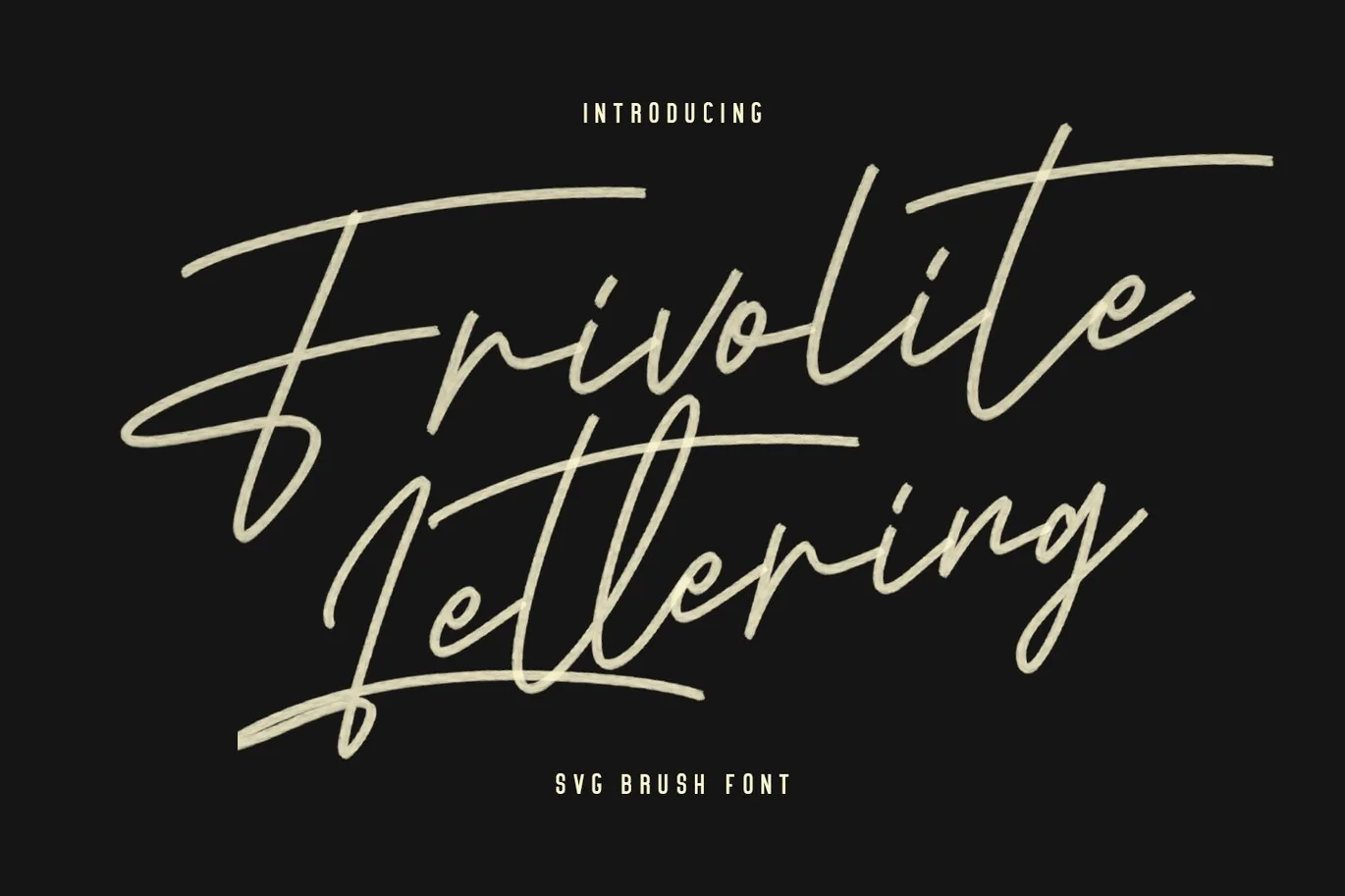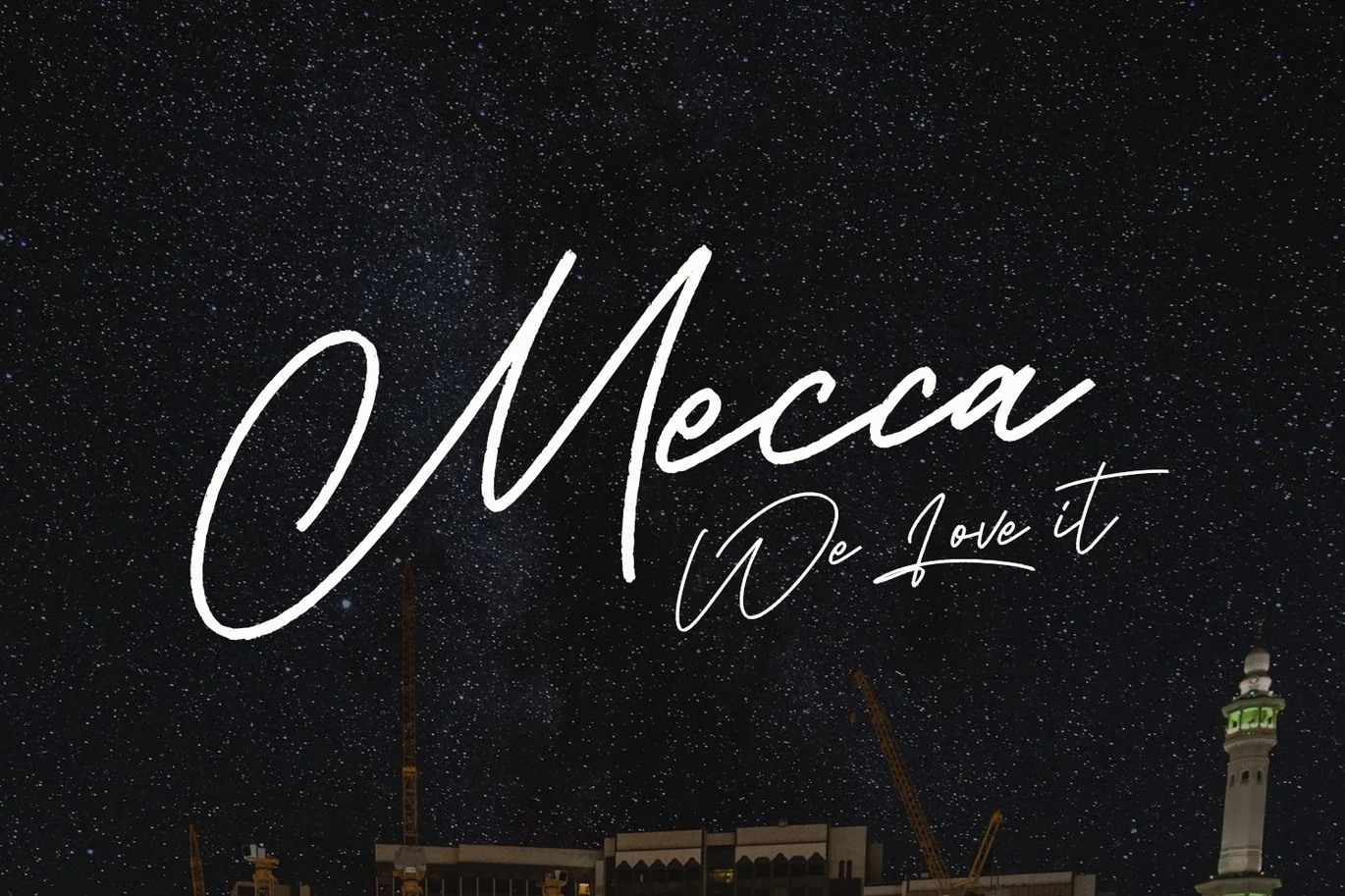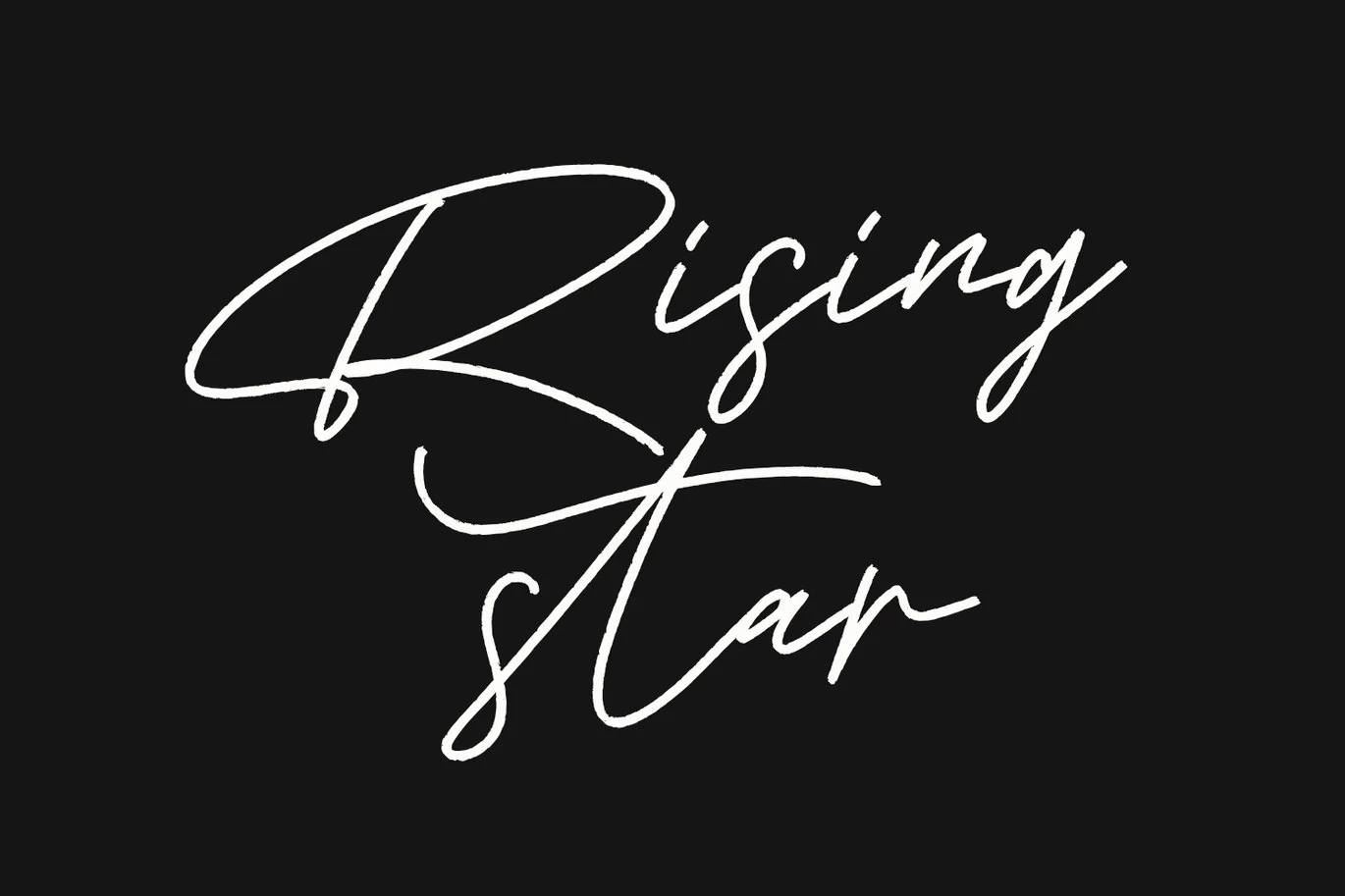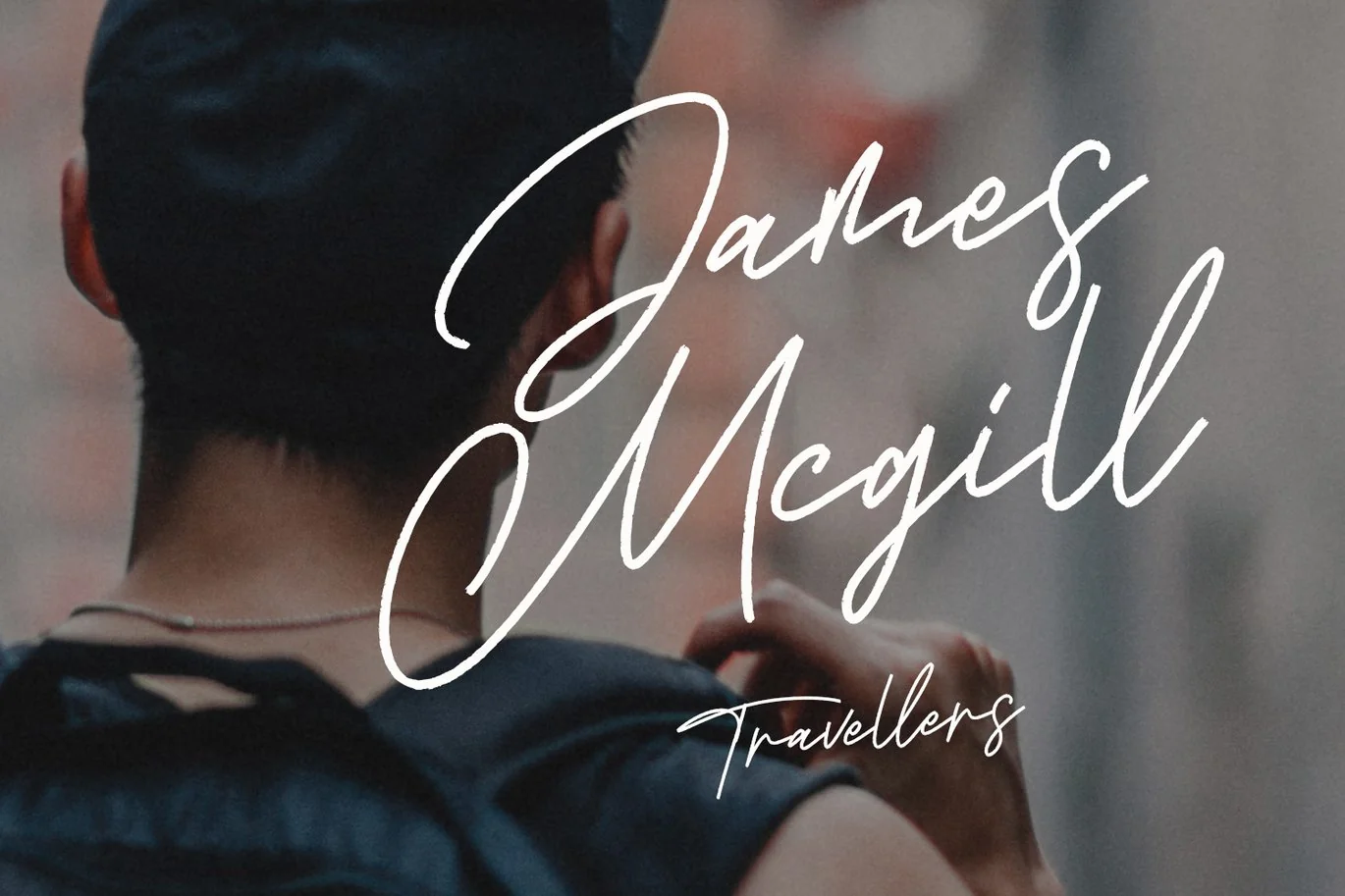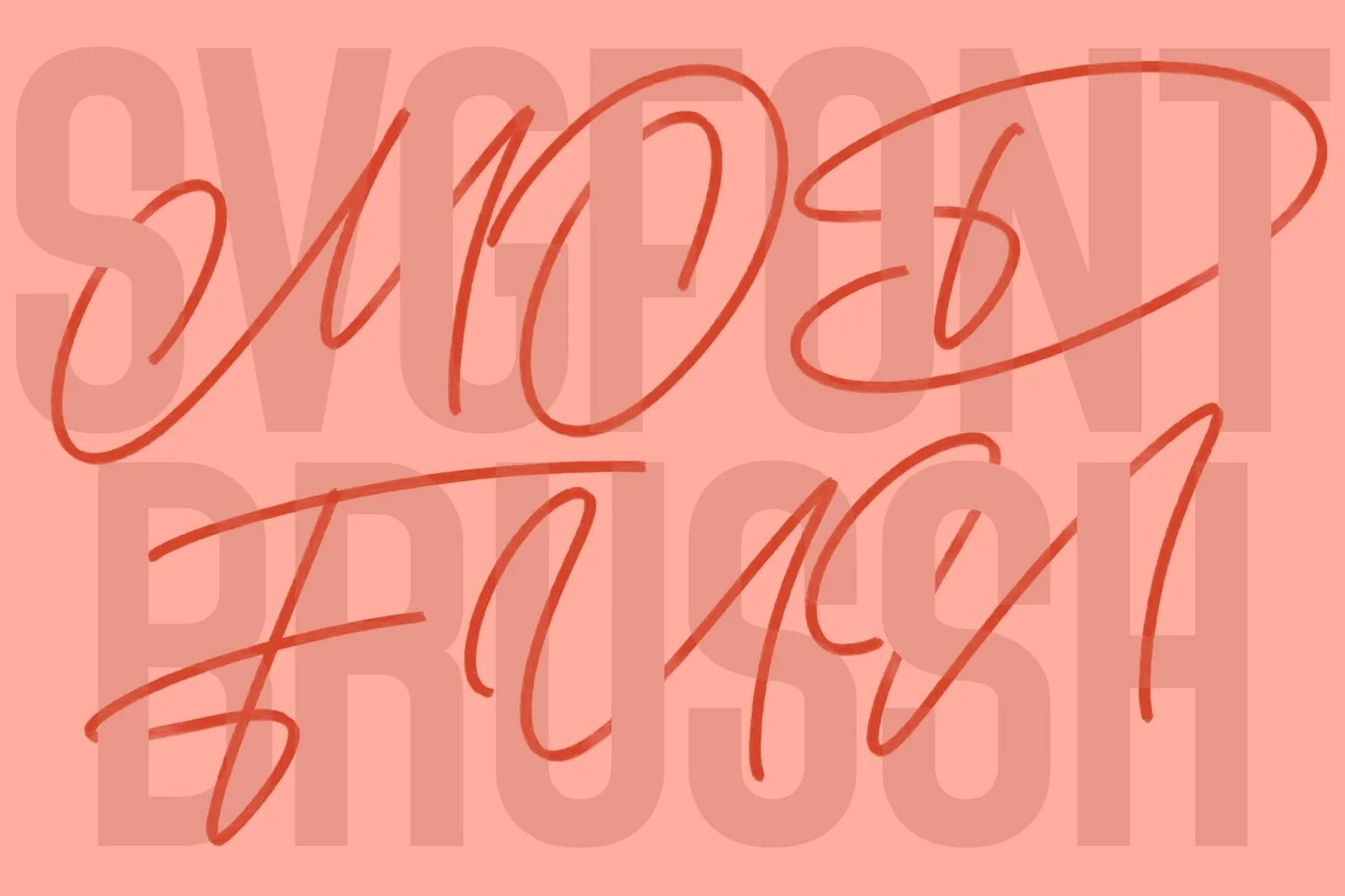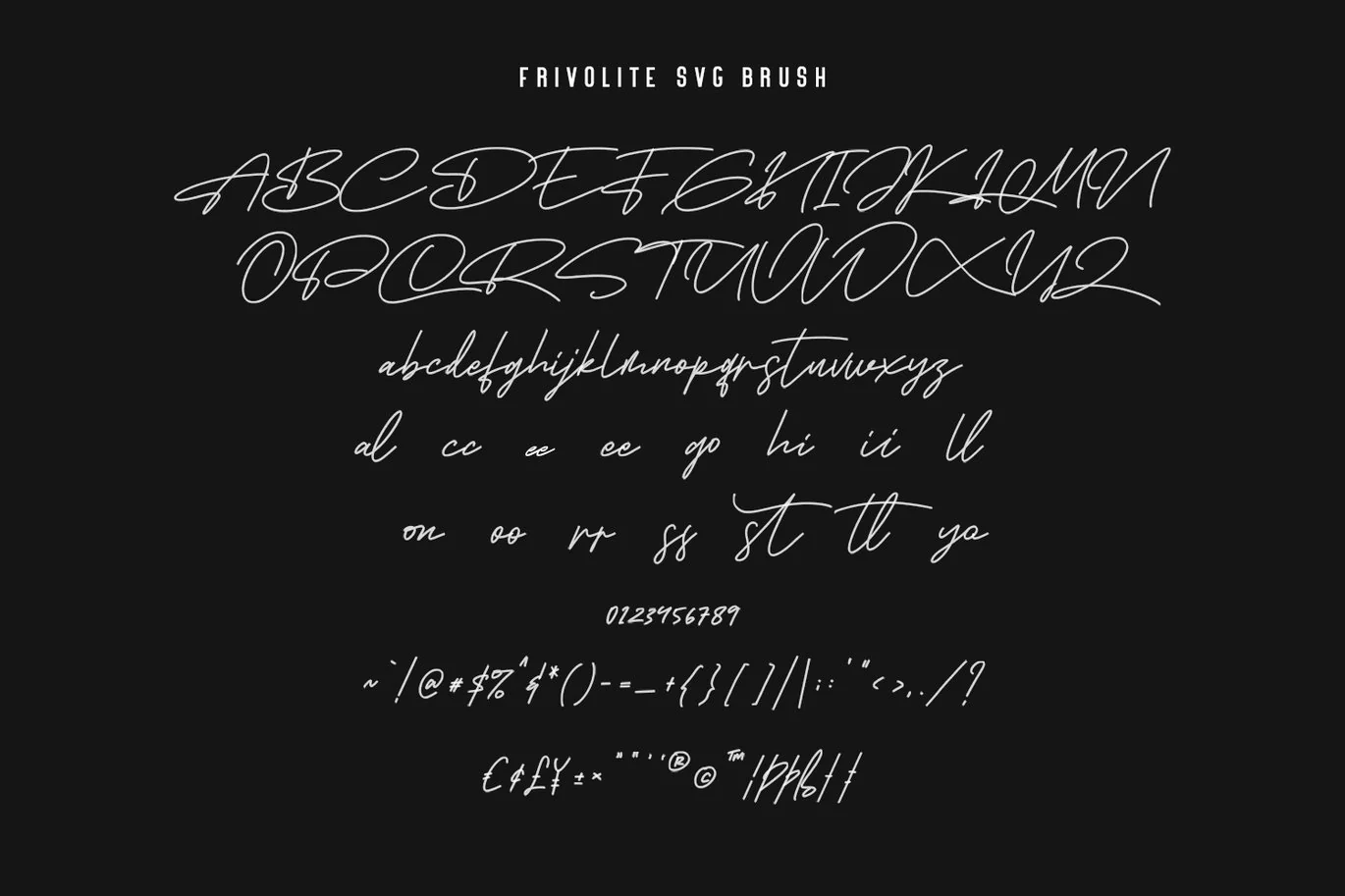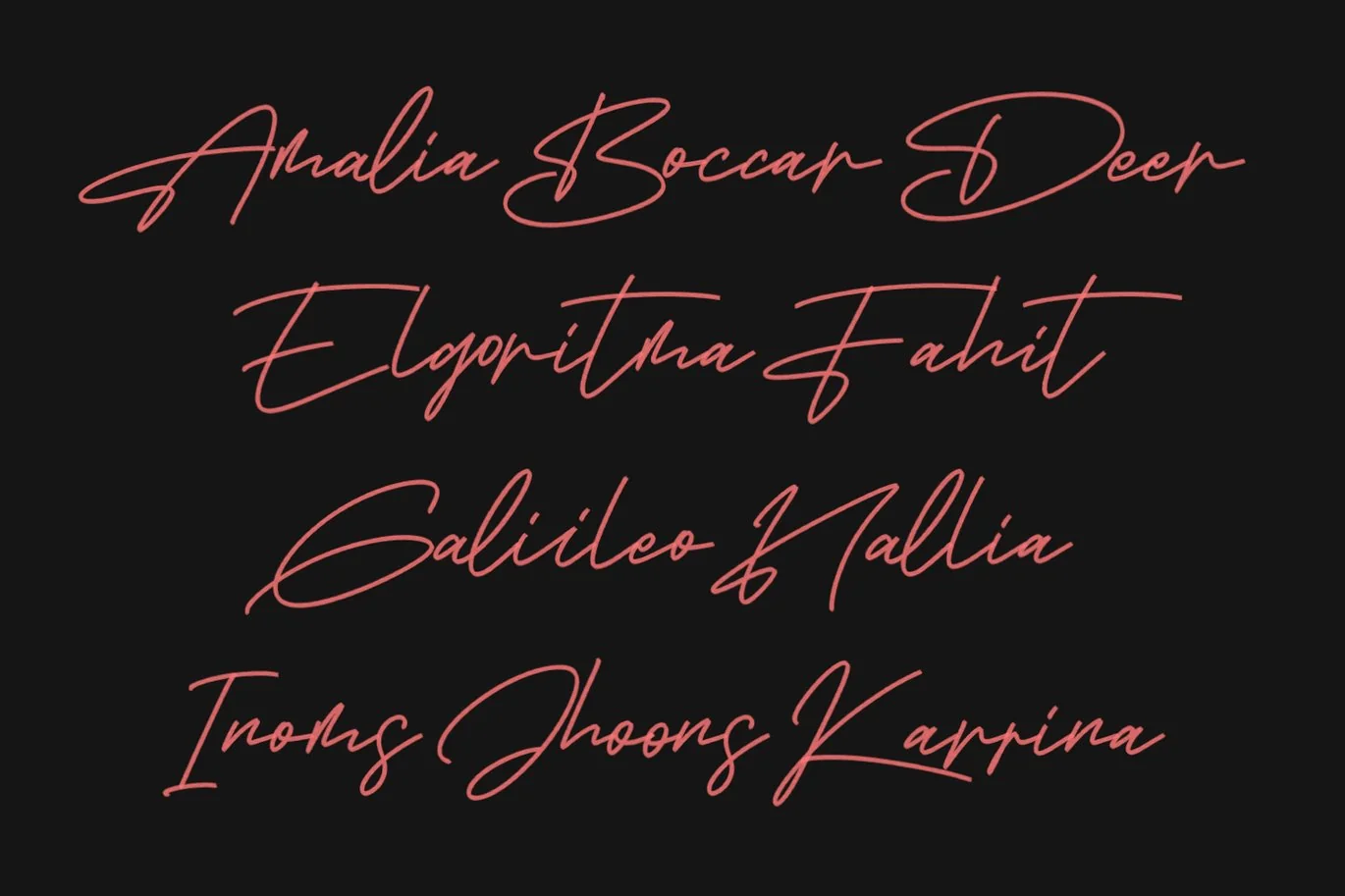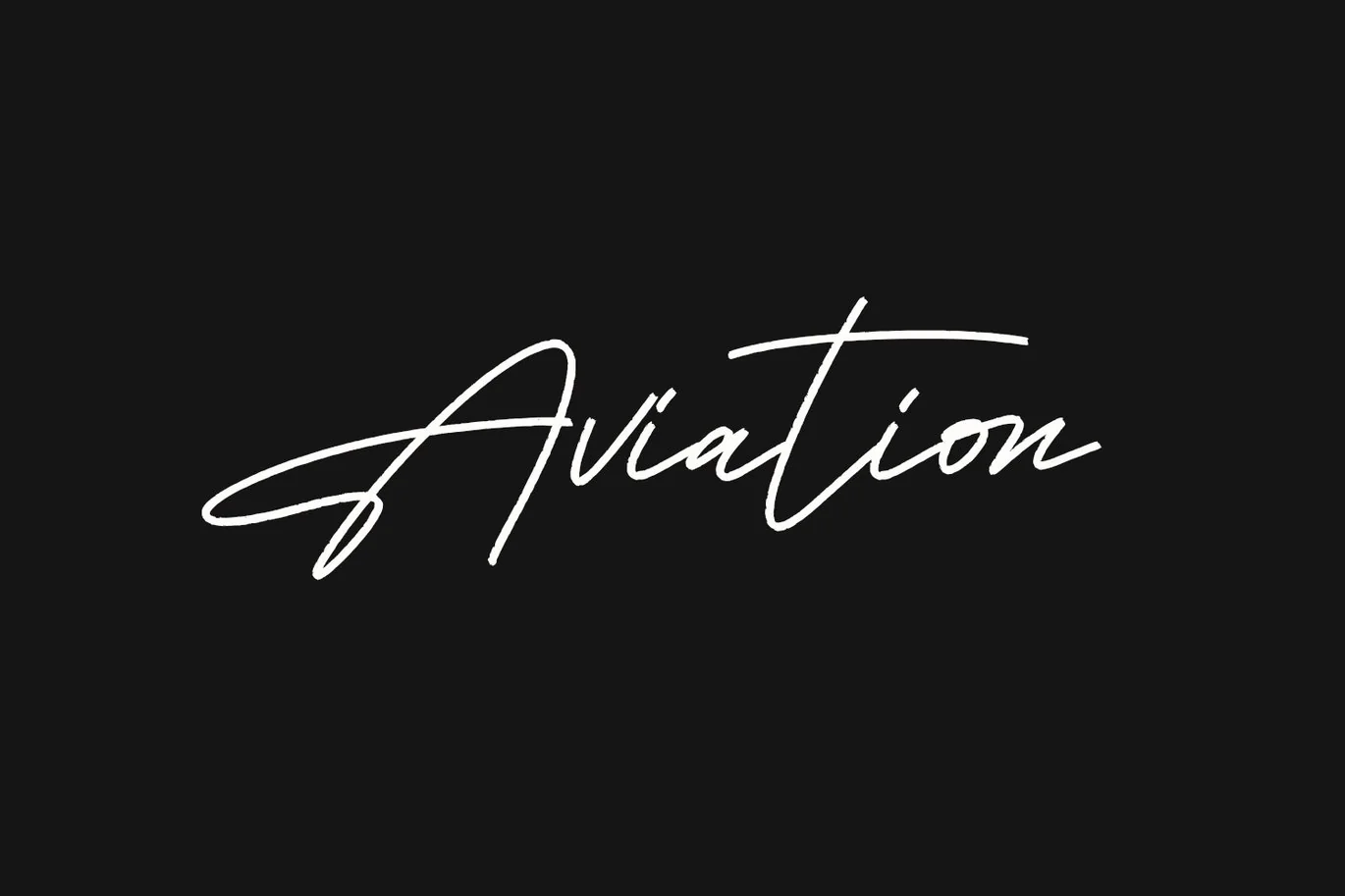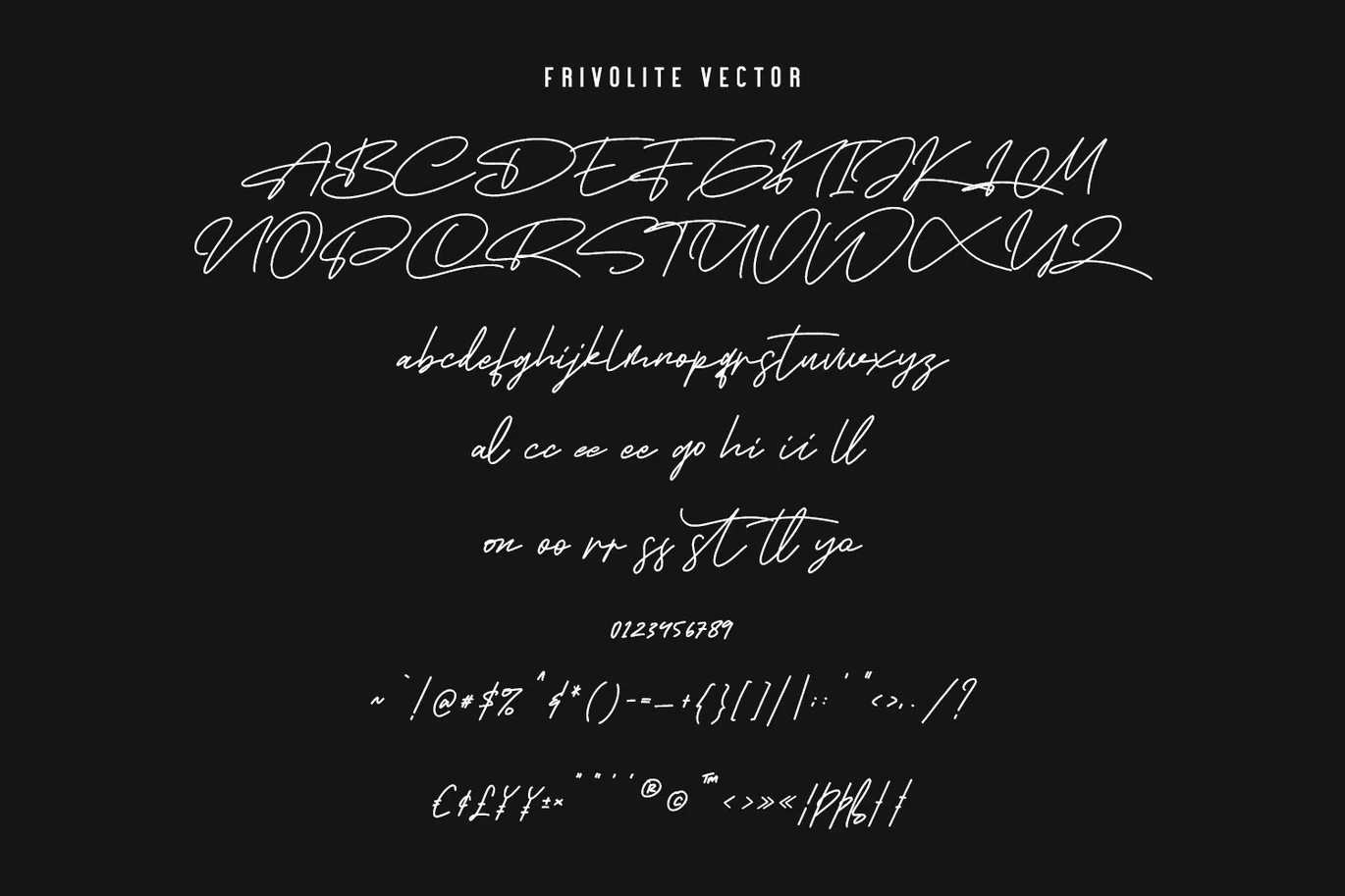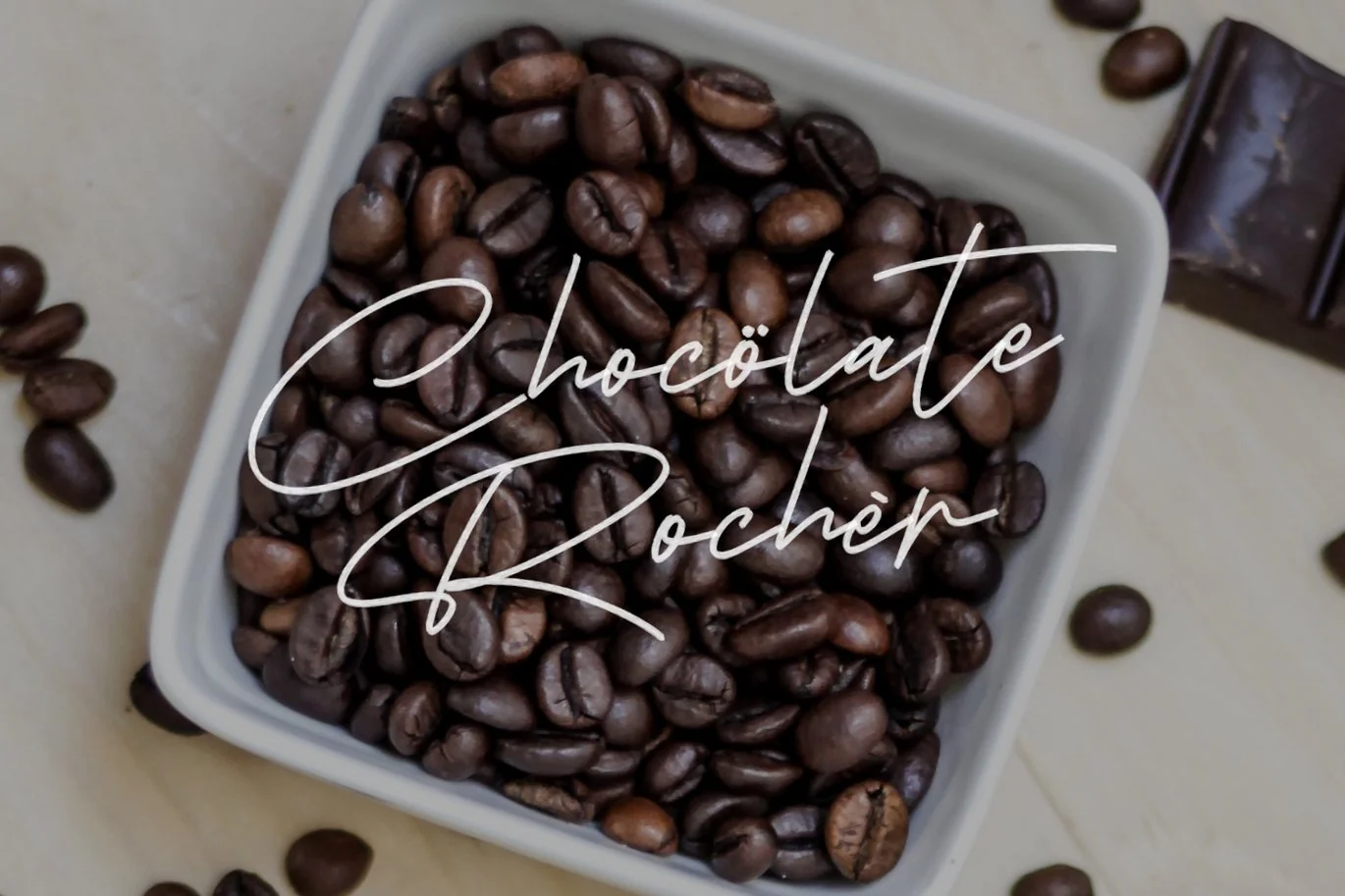
Frivolite SVG Lettering Brush Handmade Font Type
Give your designs an authentic brush handcrafted feel. “Frivolite SVG Font” is perfectly suited to signature, stationery, logo, typography quotes, magazine or book cover, website header, flyer, clothing, branding, packaging design and more.
Ligature: al cc ee go hi ii ll on oo rr ss tt st yo